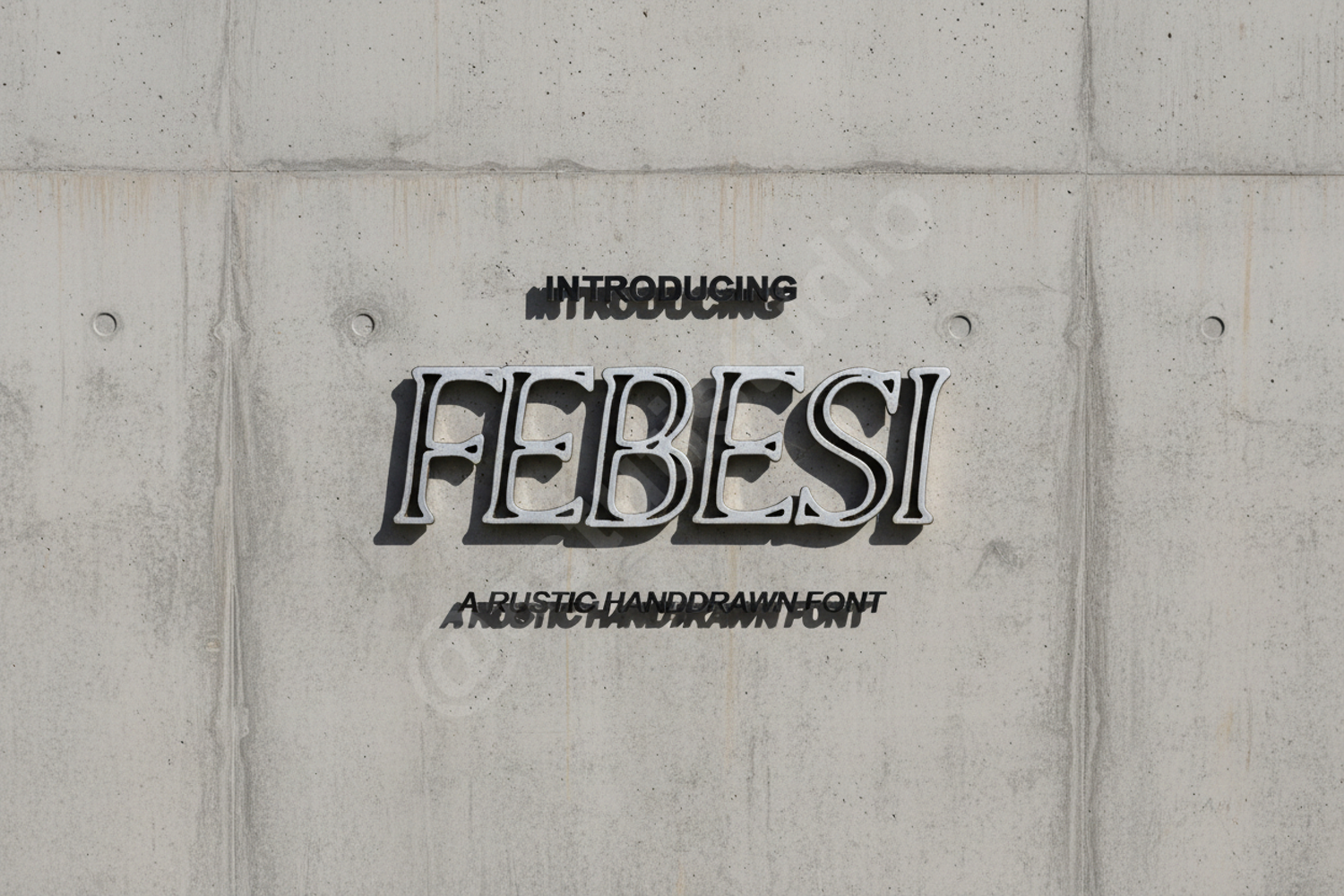
Febesi - Elegant Modern Serif Font
Febesi
Experience the perfect blend of sophistication and contemporary design with Febesi. This premium serif font is meticulously crafted to bring a touch of high-end luxury to every project. With its clean lines and unique character shapes, Febesi stands out as a versatile choice for designers seeking a balance between classic elegance and modern flair. Whether you are working on a minimalist brand identity or a complex editorial layout, Febesi provides the professional edge your work deserves.
Febesi is designed to excel in a variety of creative applications, including:
- Professional Branding and Logo Design
- High-end Editorial Layouts and Magazines
- Sophisticated Wedding Invitations and Stationery
- Social Media Graphics and Minimalist Posts
- Premium Product Packaging and Labels
- Website Headers and Digital Typography